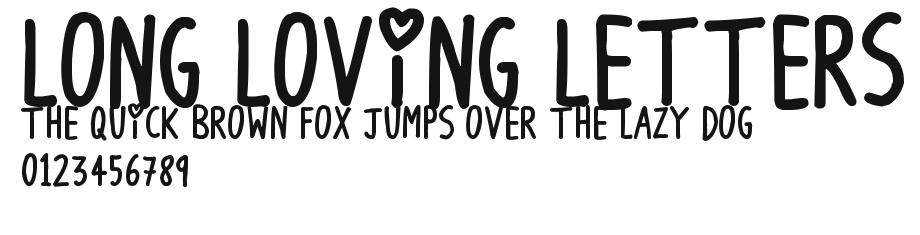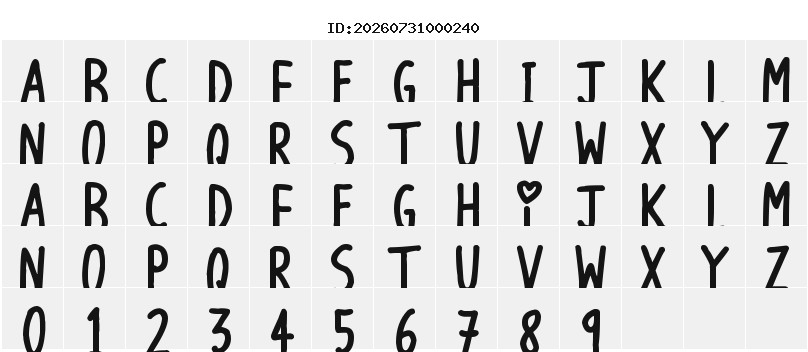
Long Loving Letters Preview
• Font Name: Long Loving Letters
• Full Font Name: Long Loving Letters
About Long Loving Letters.ttf
Long Loving Letters.ttf is a modern, elegant sans-serif font designed for ultimate readability and visual harmony. Perfect for branding, headlines, web design, and print materials.